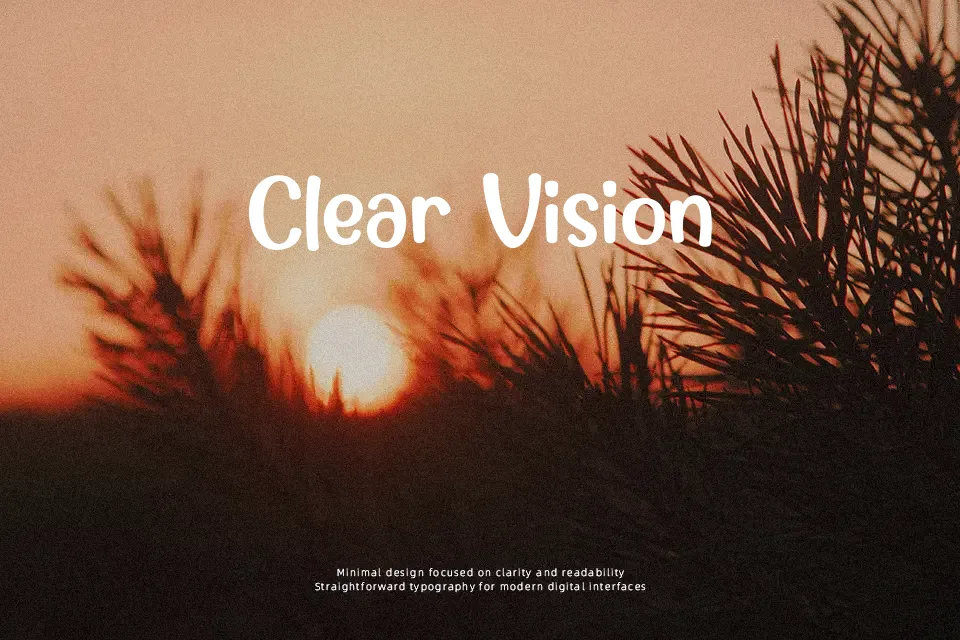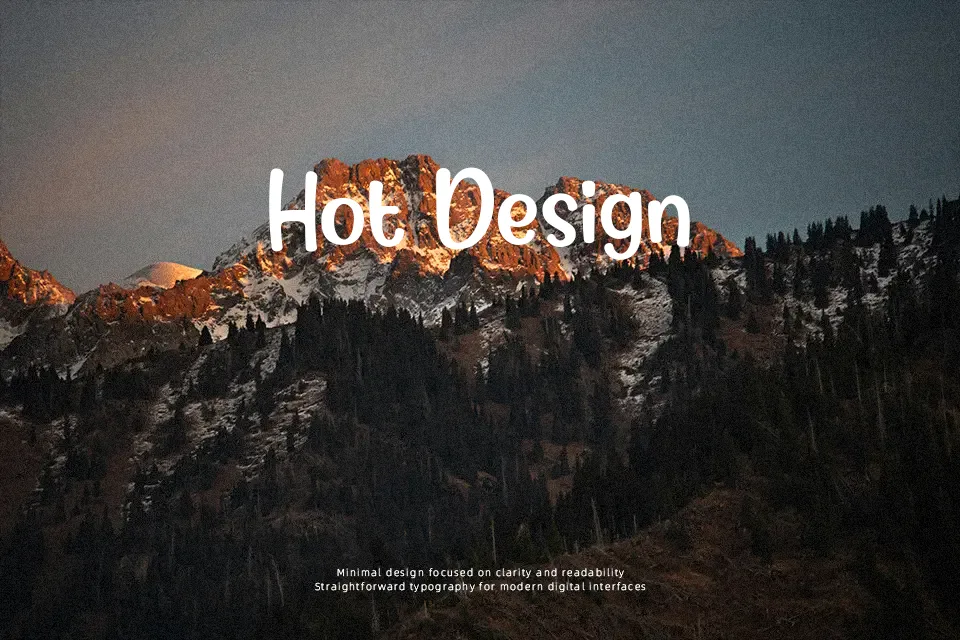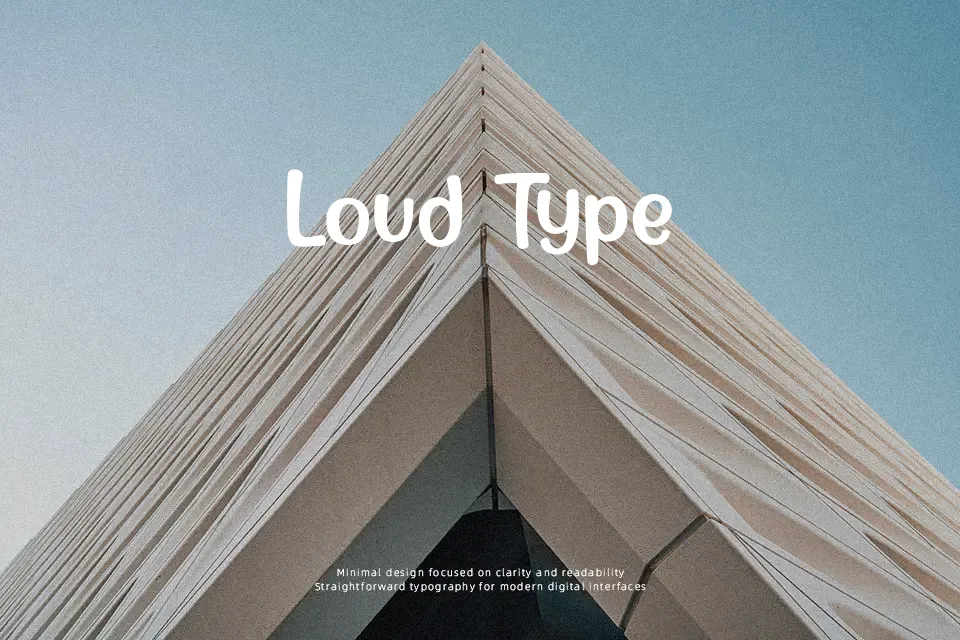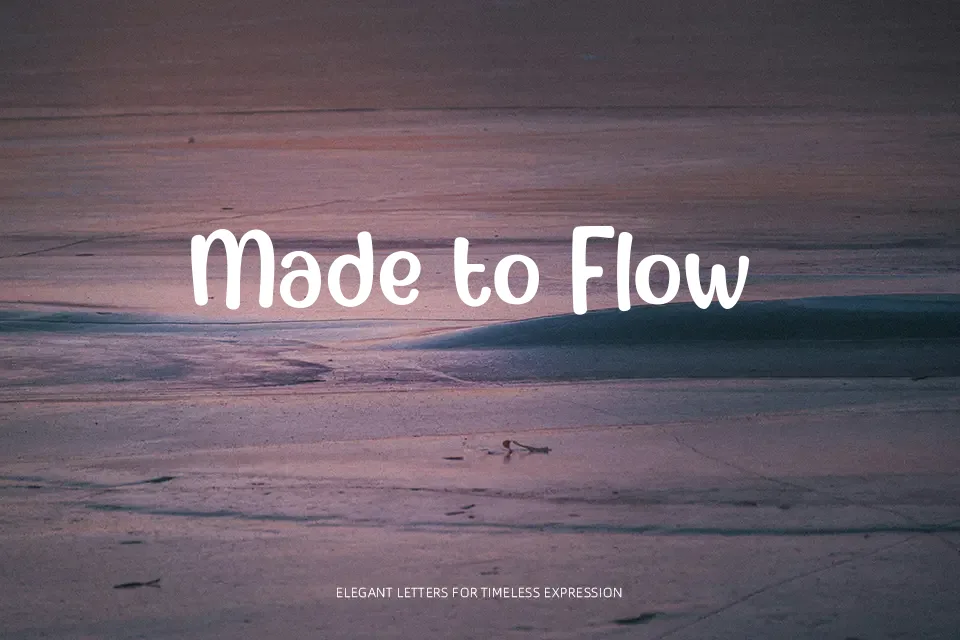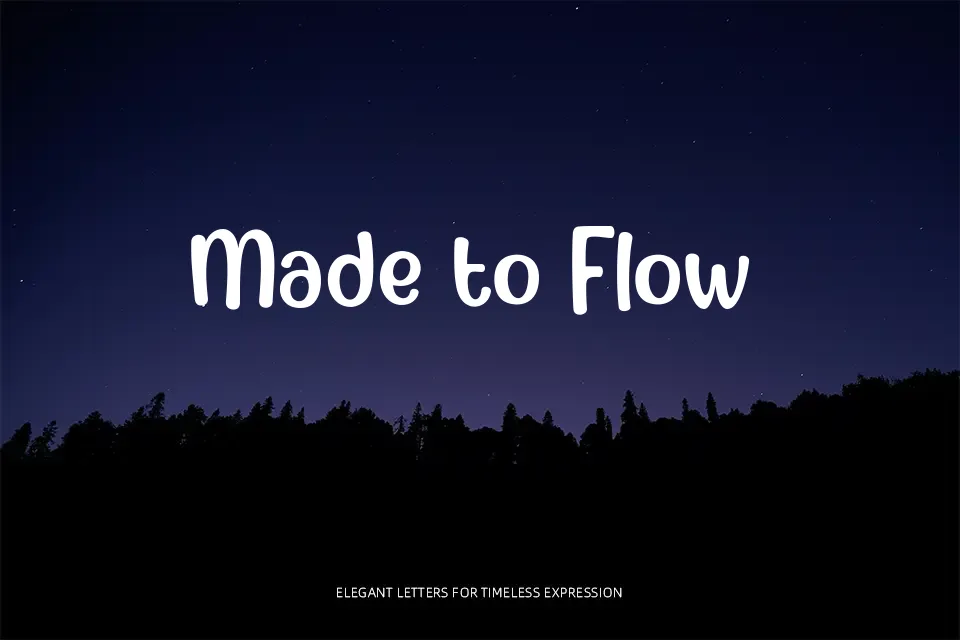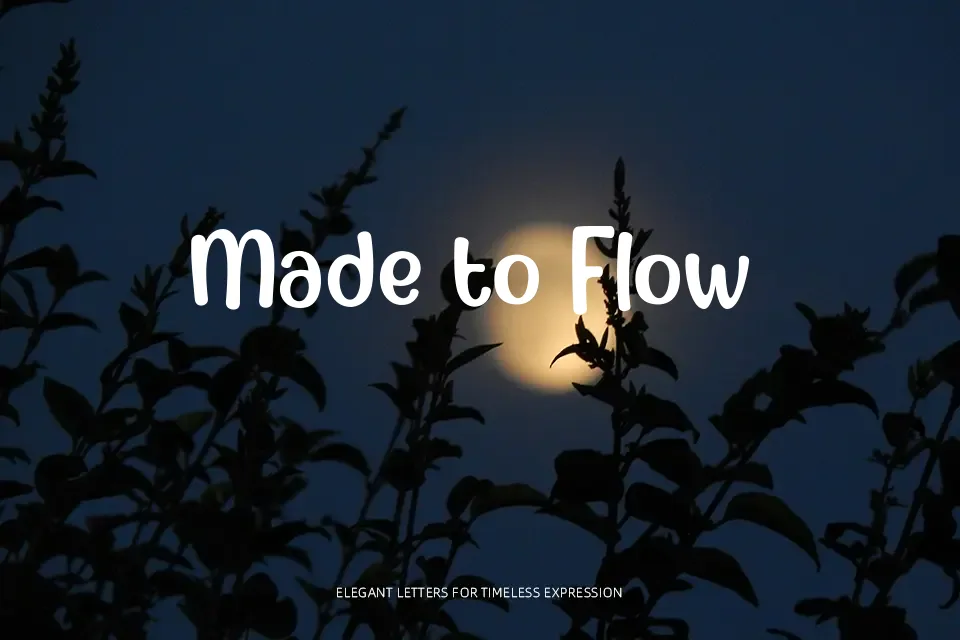
Candy Cake Font
Candy Cake is a sweet, cartoon-like display script with rounded terminals, medium weight strokes, and a bouncy baseline that resembles piped frosting on a cake. Letters sit fairly tight, giving headlines a dense, sugary block of color rather than an airy feel. It reads as casual and decorative rather than refined, so it shines in short phrases, shop signs, and packaging where charm matters more than long-form clarity. Use it for kids’ party invitations, dessert menus, bakery boxes, or playful holiday promotions, then pair it with a clean sans serif for details. For body text, serious editorials, or corporate presentations, its informal curves quickly feel out of place and can tire the eye.
Cute bakery or dessert shop logos and packaging
Kids’ birthday invitations and party signage
Playful social media posts and story covers
Sweet seasonal headlines for holiday promotions
Long paragraphs or dense editorial layouts
Formal corporate branding or reports
Small UI labels or functional body copy
Serious topics where a neutral tone is needed
Perfect for holiday, kids, and logo, with a creative and decorative style.